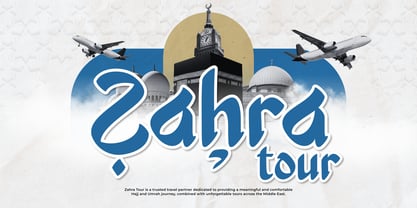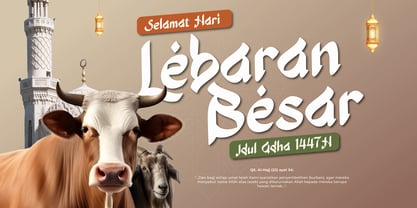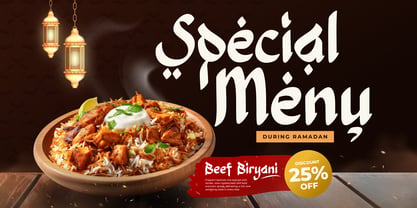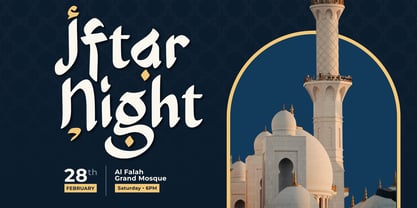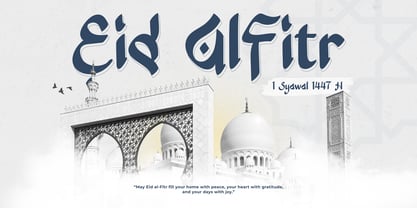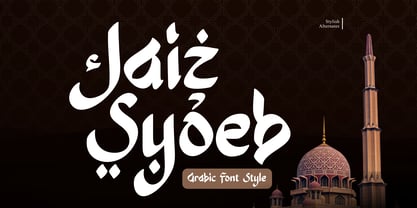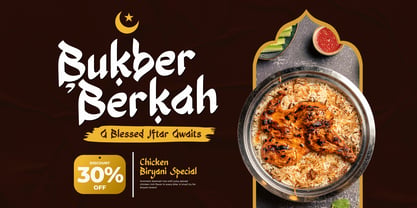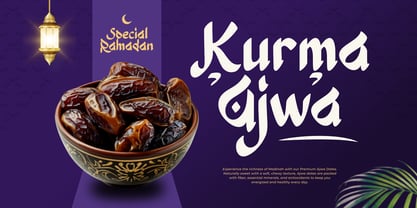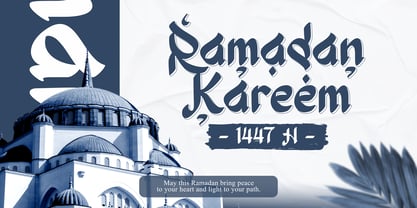
Jaiz Syoeb is a modern Arabic Font Style typeface designed to deliver elegance, spiritual depth, and a strong visual character. Inspired by the art of Arabic calligraphy yet executed with a contemporary touch, this font serves as the perfect aesthetic solution for Ramadan themes, Eid celebrations, and various forms of Islamic Branding that require a blend of tradition and modernity.
This typeface artistically balances traditional aesthetics with functional design needs through its bold, flowing, yet highly readable letterforms. Its refined visual characteristics make it ideal for logotypes, book cover designs, fashion branding, and even beauty product or halal food promotions that aim to highlight an exclusive, warm, and dignified impression.
Crafted for designers seeking a meaningful and impactful visual identity, Jaiz Syoeb is highly flexible for both digital and print applications. This font helps brands appear more professional and culturally relevant in promoting Islamic events or contemporary commercial campaigns. As an Islamic Display Font, Jaiz Syoeb is ready to elevate your design work into a beautiful visual statement rich with heritage values.
Jaiz Syoeb